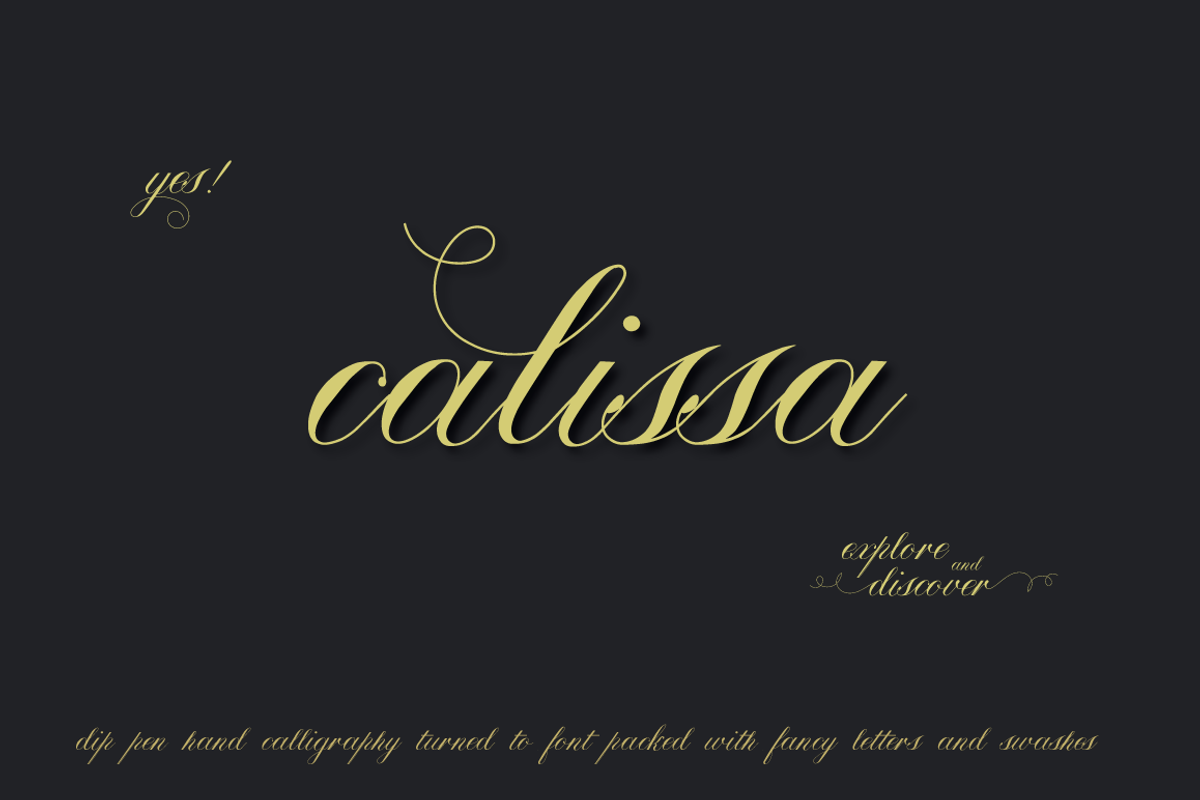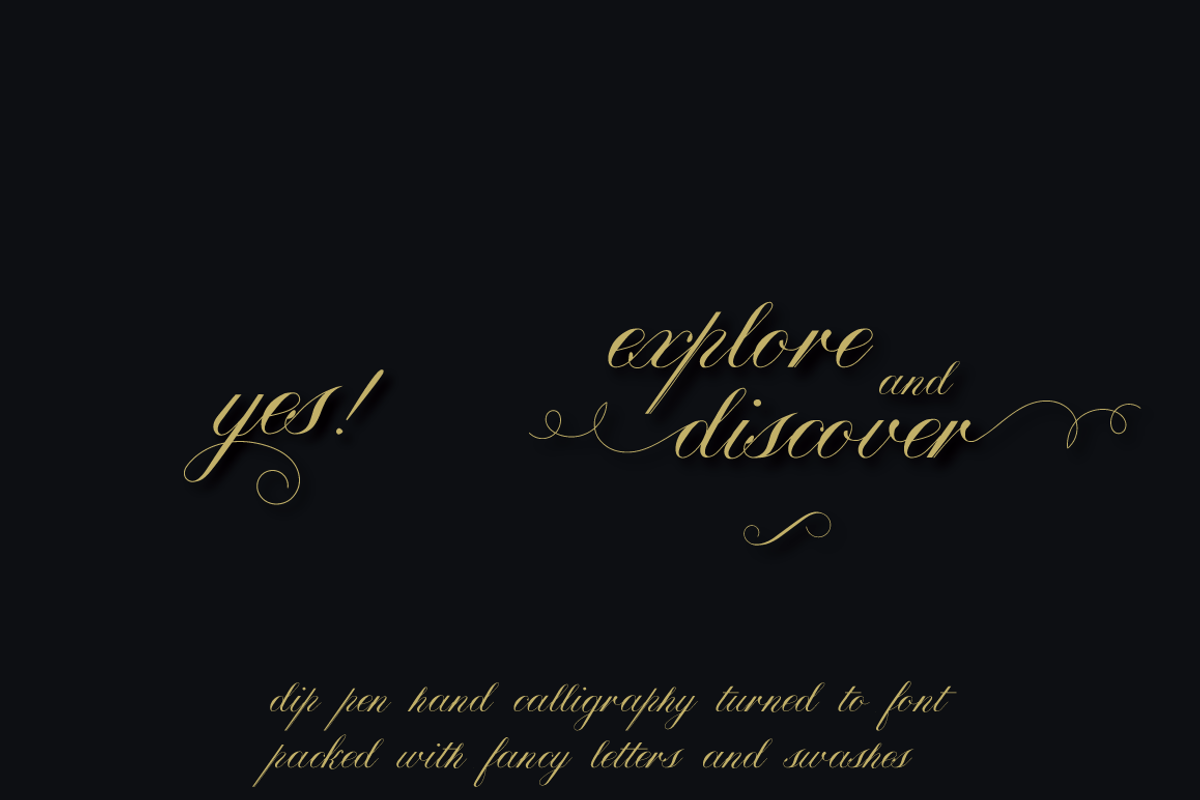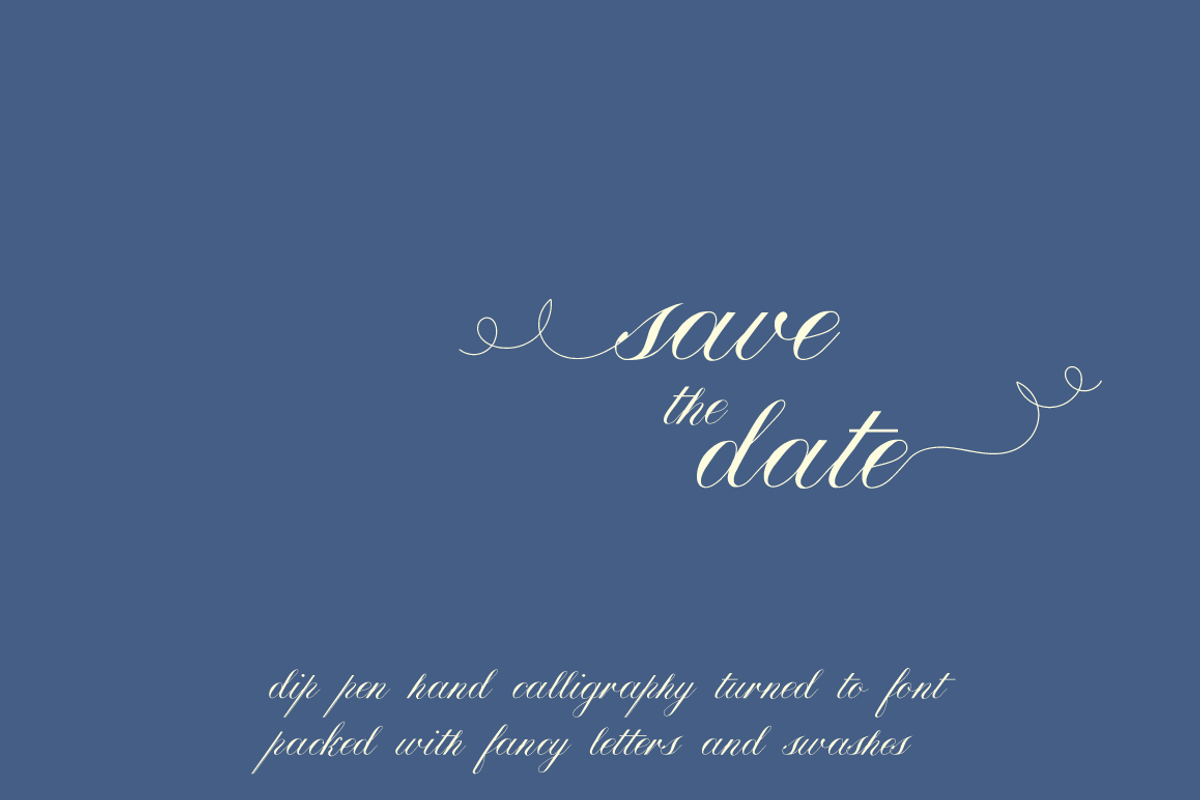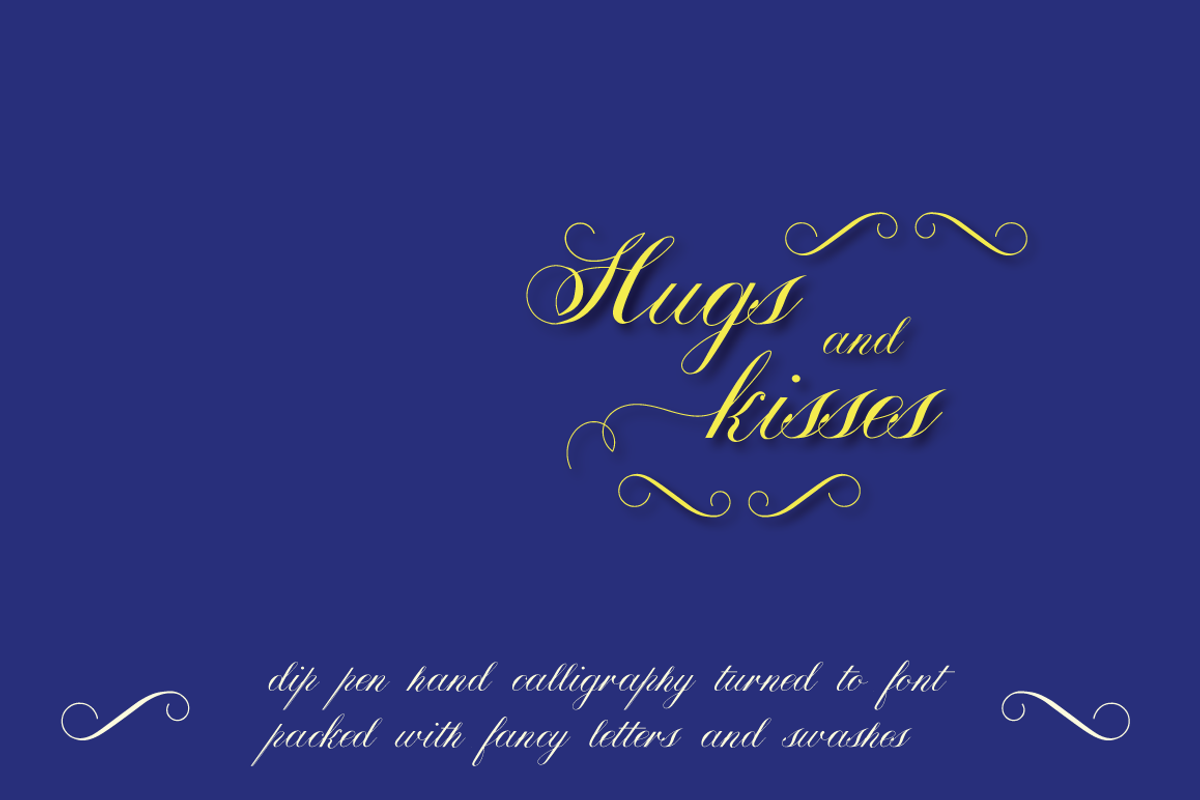
Calissa Pro font
Calissa Pro font by Aga Silva is a font selected for branding, posters, packaging, typography.
- There is also a number of fancy ornaments (which can be placed under, above or in corners of your text) which is included as an extra in thi
- Calissa Pro is a multilingual, handwritten stylish copperplate calligraphy font, a sort of upgrade to issued earlier this year Calissa font.
- The listed file is containing over 1800 glyphs and has many open type features: including fancy swashes, alternates, ligatures and lettering
Why Calissa Pro font is worth a look
Calissa Pro font by Aga Silva fits naturally into Branding, posters, packaging, typography.